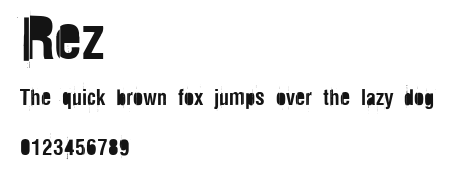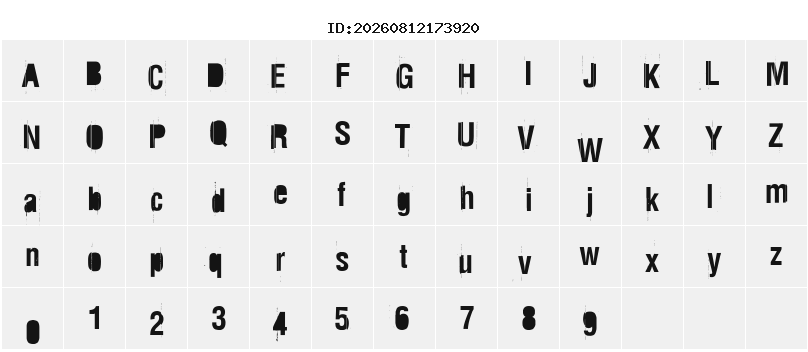
• Font Name: Rez
• Full Font Name: Rez
• Copyright: 1997, squirtGun. Designed by Faizal Reza.
Rez.ttf is a modern, elegant sans-serif font designed for ultimate readability and visual harmony. Perfect for branding, headlines, web design, and print materials.